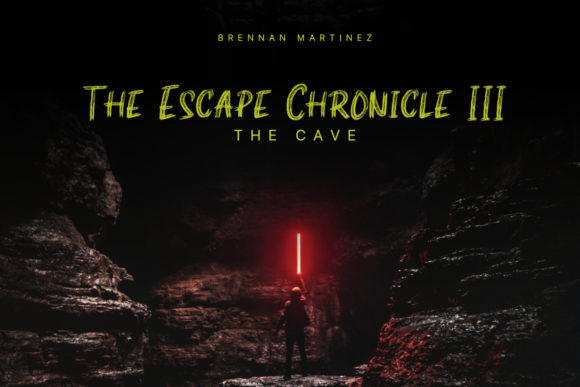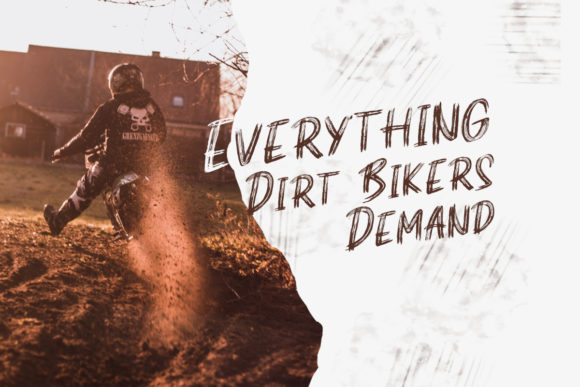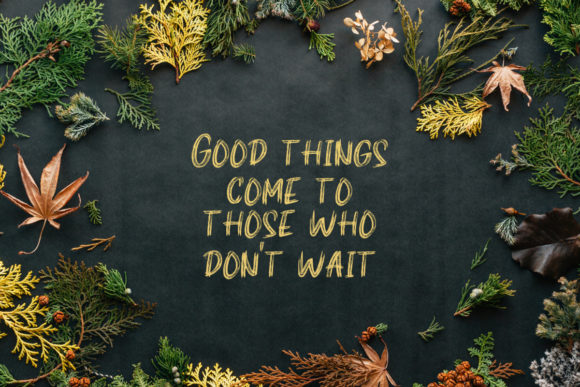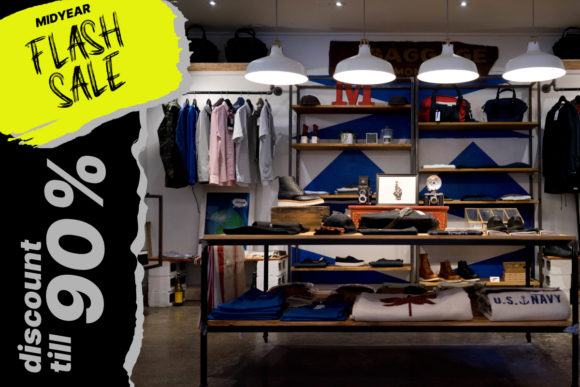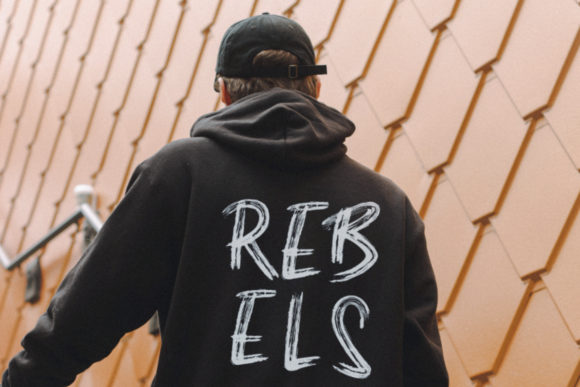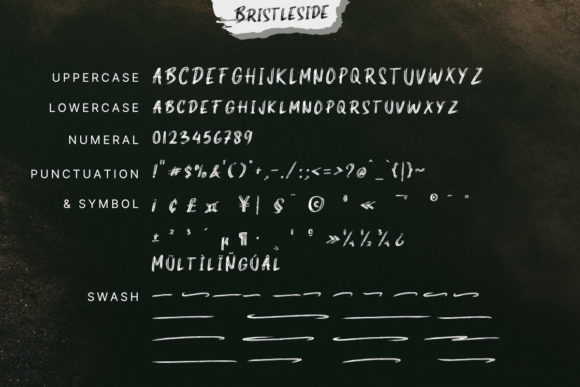
Introduction to Bristleside Font
Bristleside is a hand-brushed font.
It has unique characteristics that can evoke the impression of adventure, wilderness, sports, urban and even horror It’s perfect for logos, apparel, quotes, product packaging and much more.